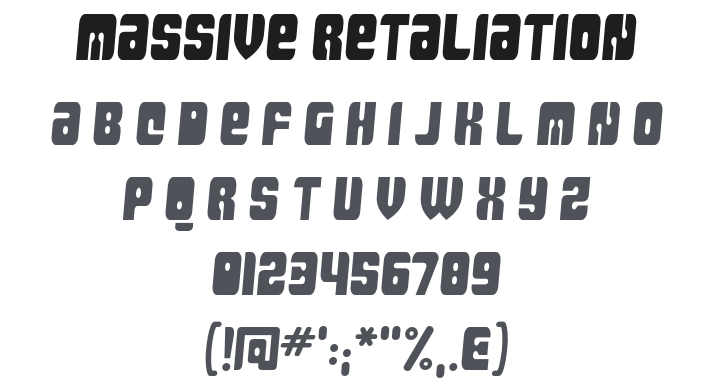
Massive Retaliation Font
About Massive Retaliation
Massive Retaliation is a bold, rounded 1990s techno display typeface that fuses Arts and Crafts letterform sensibilities with geometric, futuristic design — chunky, uniform strokes with a slightly condensed stance that feels both retro-groovy and sci-fi commanding. Its fat, confident presence fills any headline with authority. Perfect for game titles, sci-fi branding, retro-tech posters, action event graphics, and anything needing heavy, unapologetic impact.